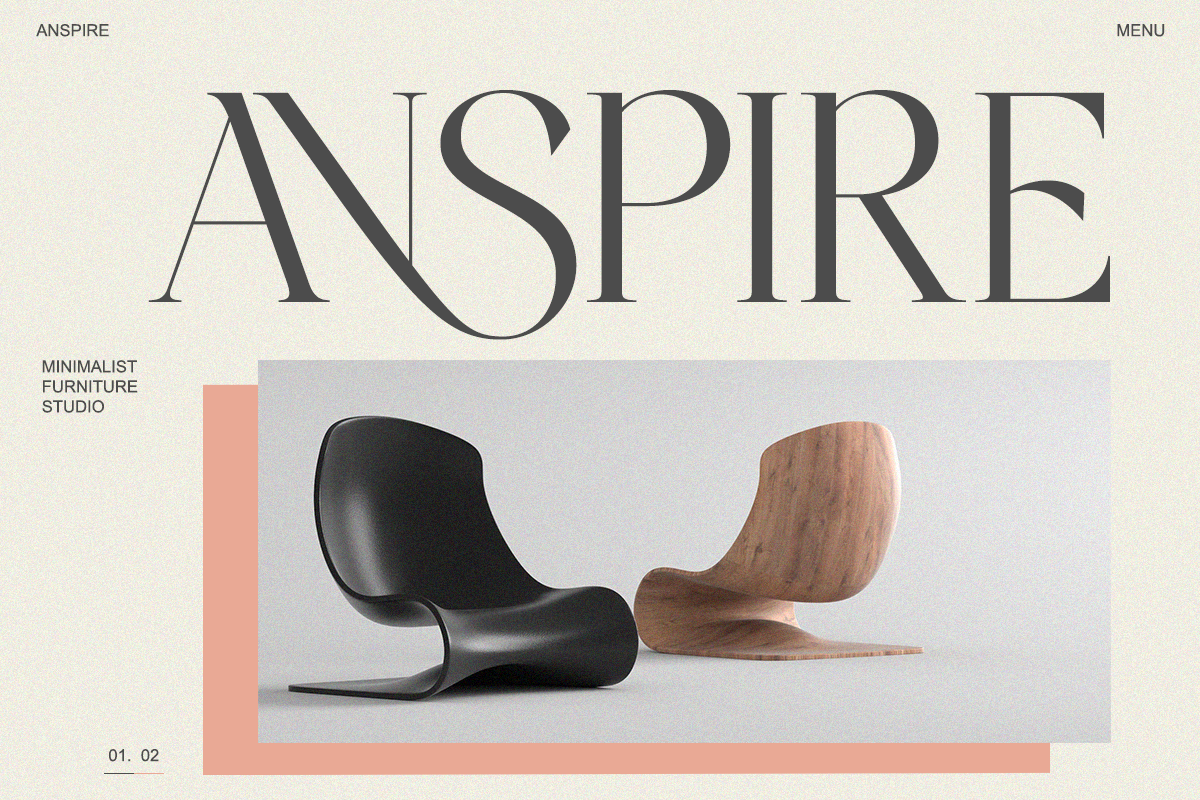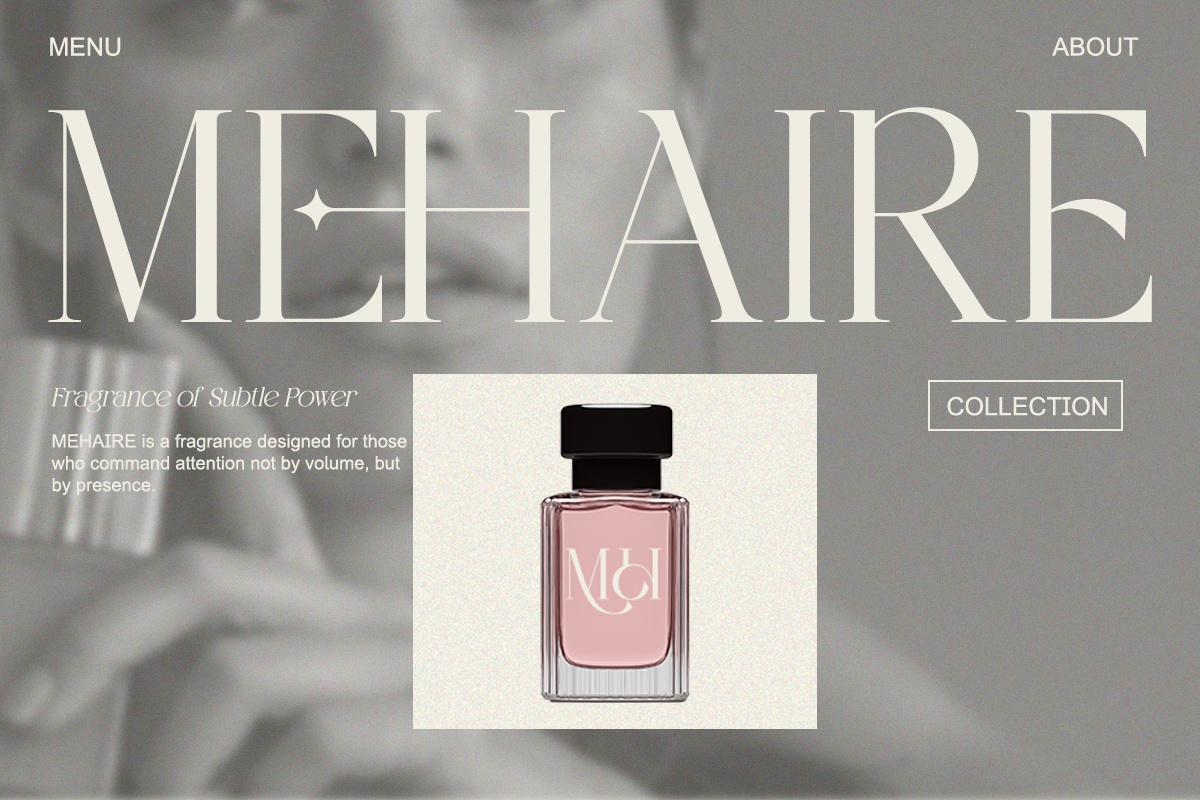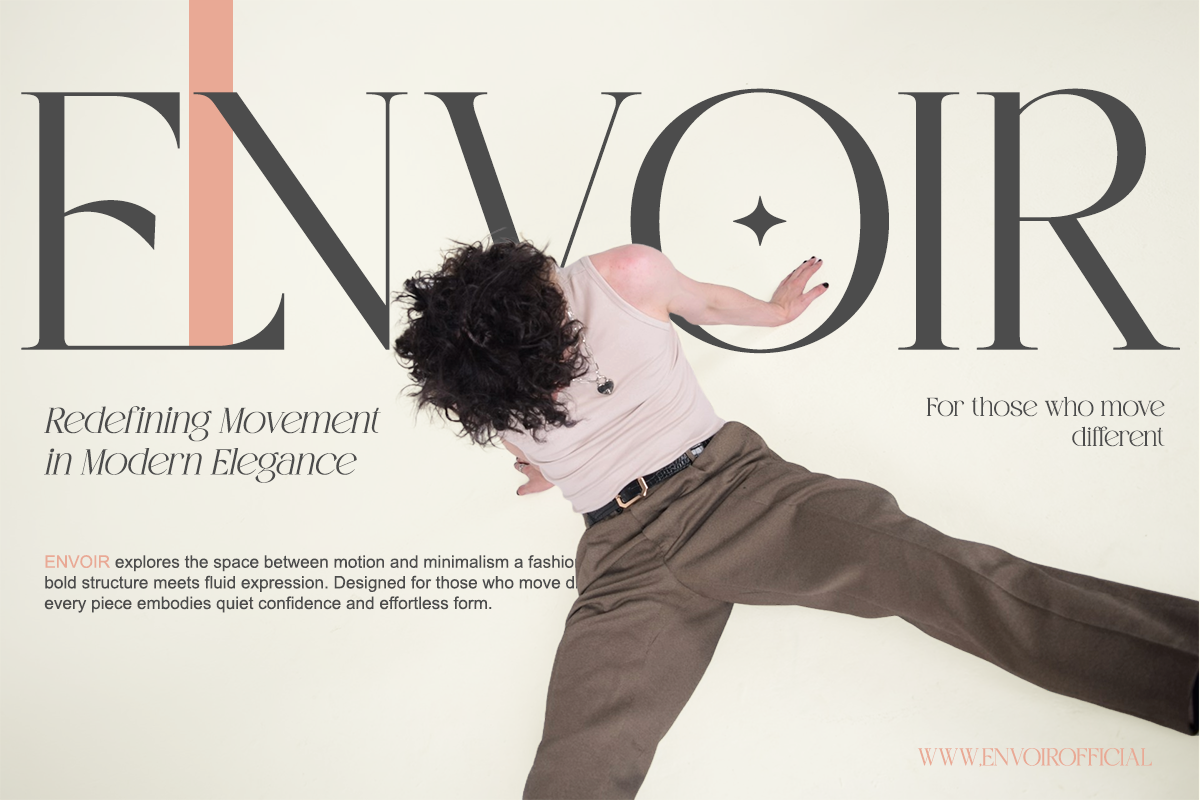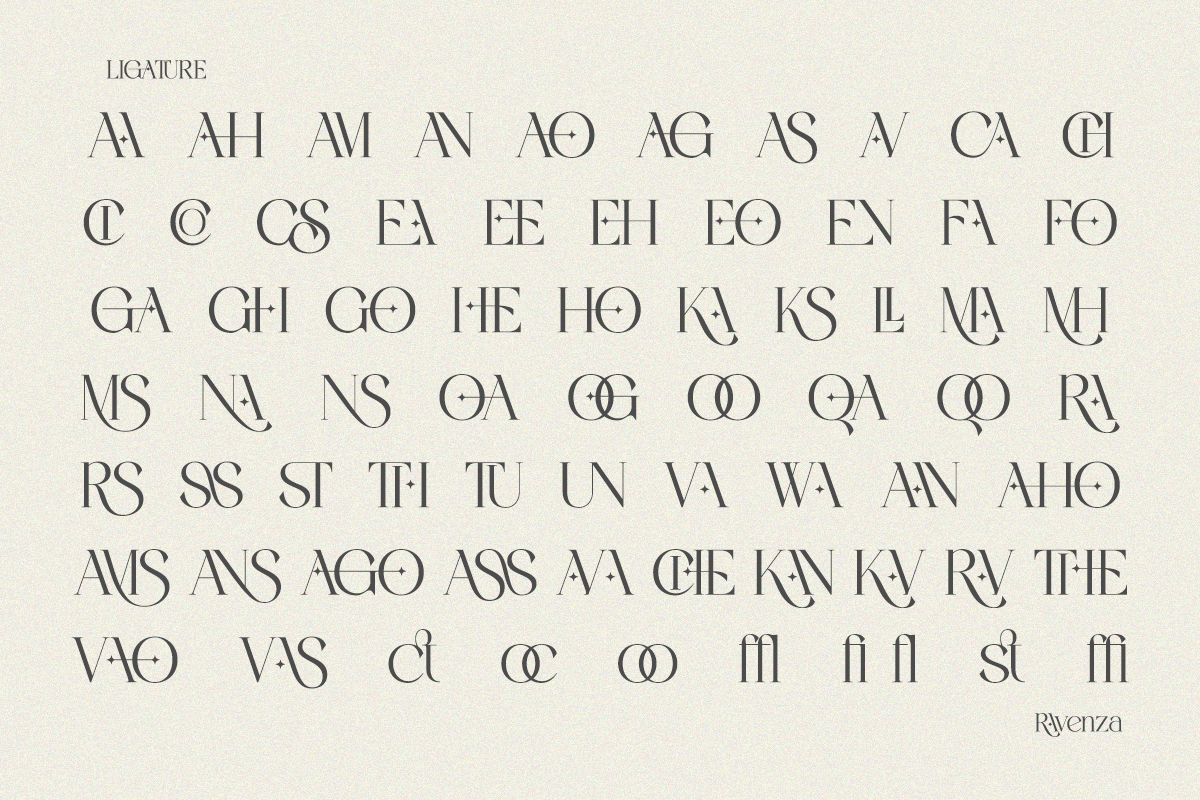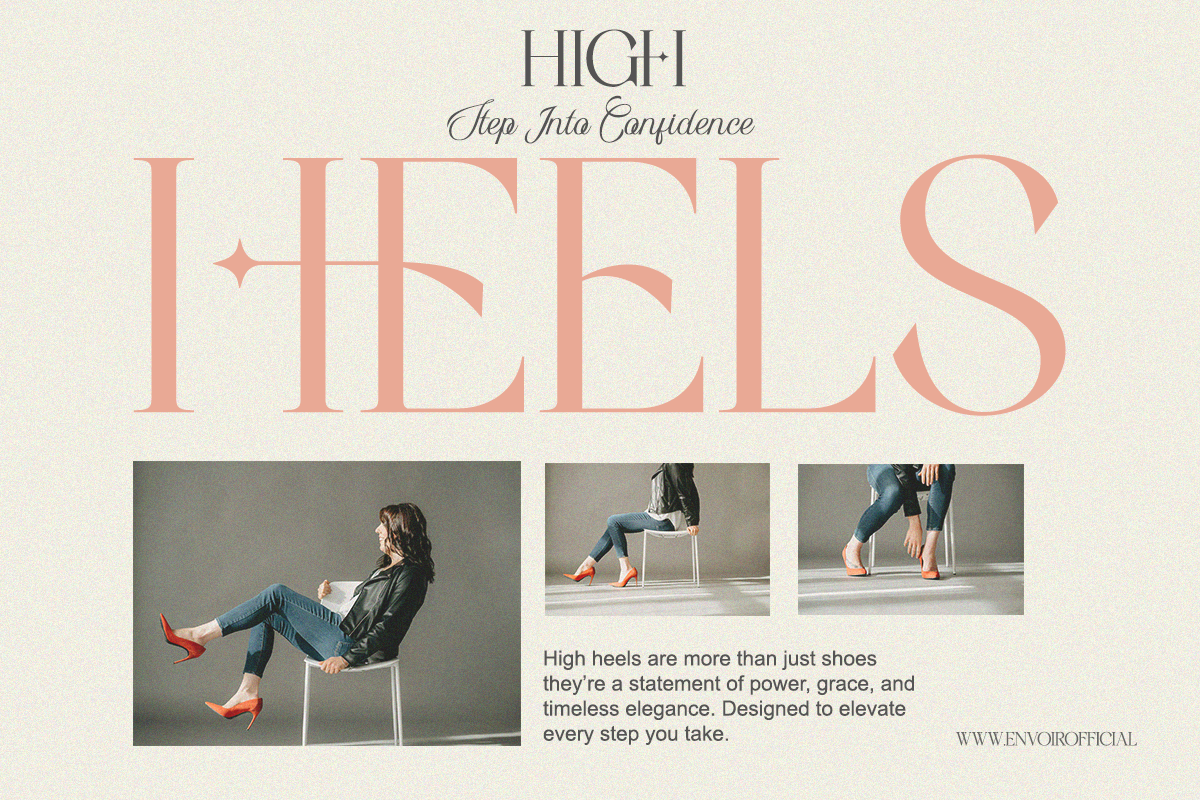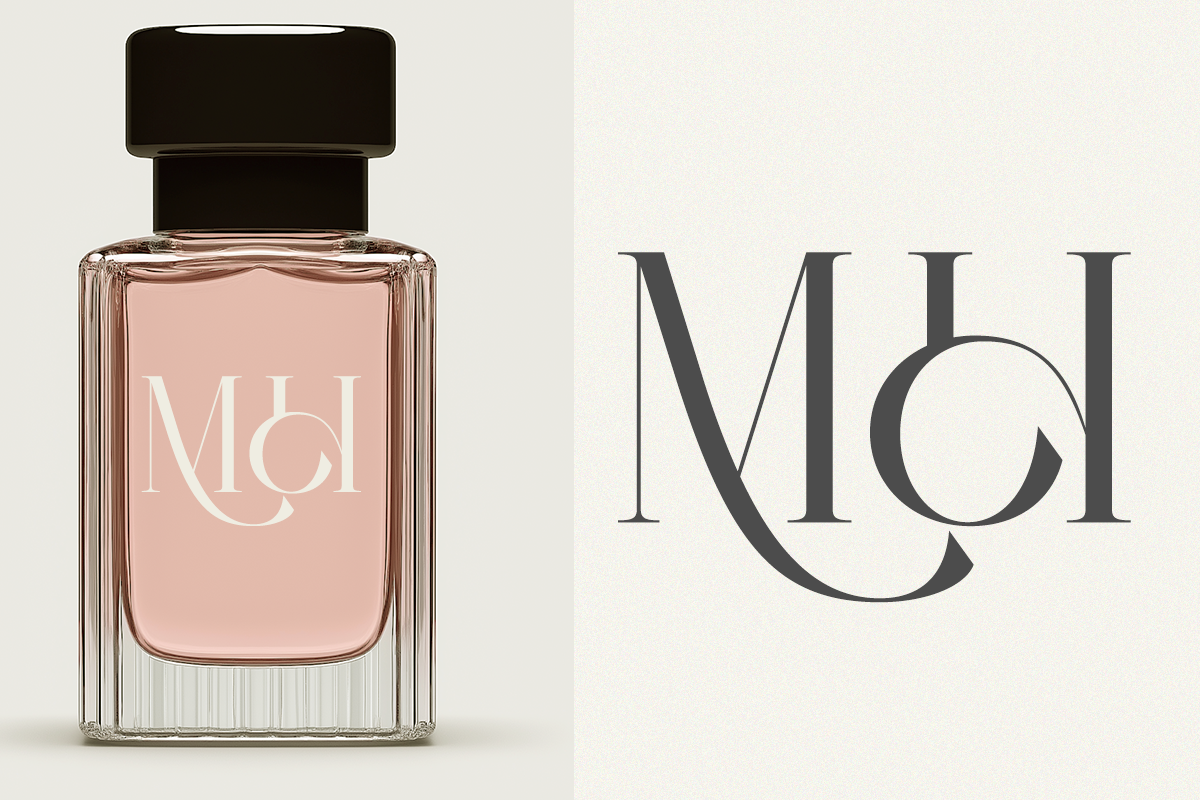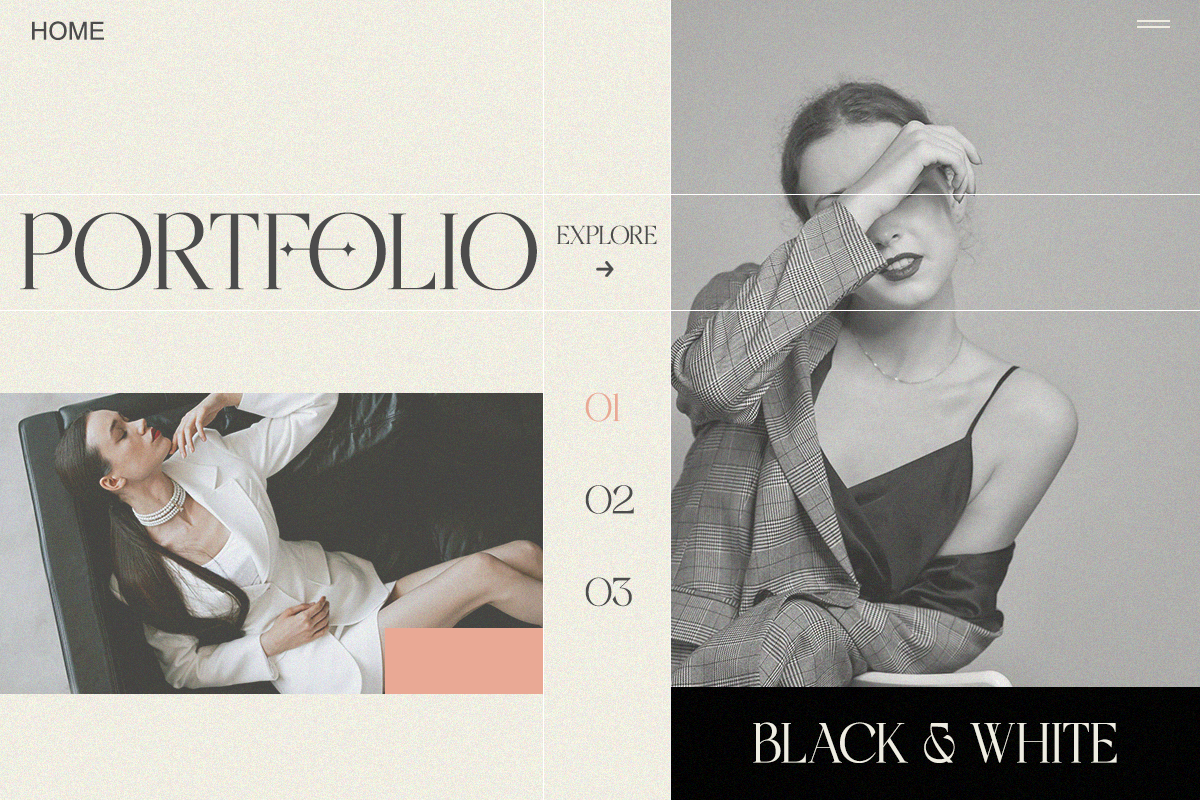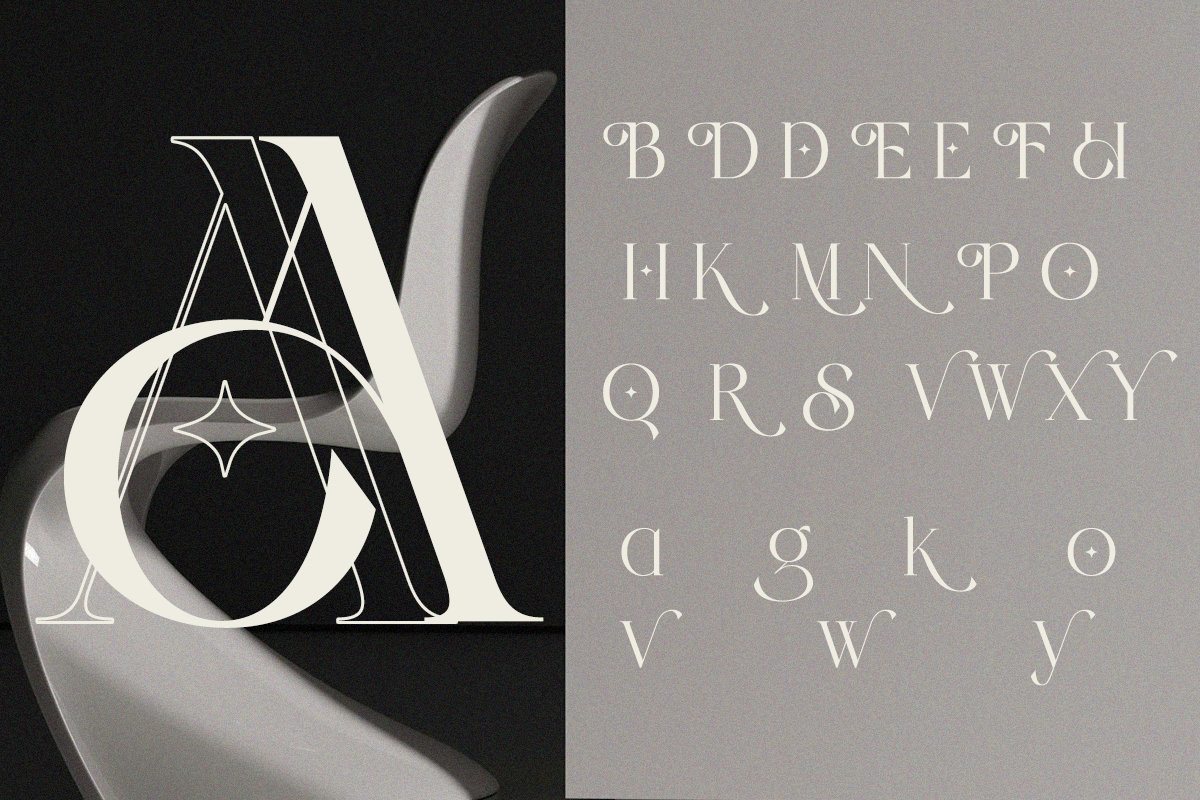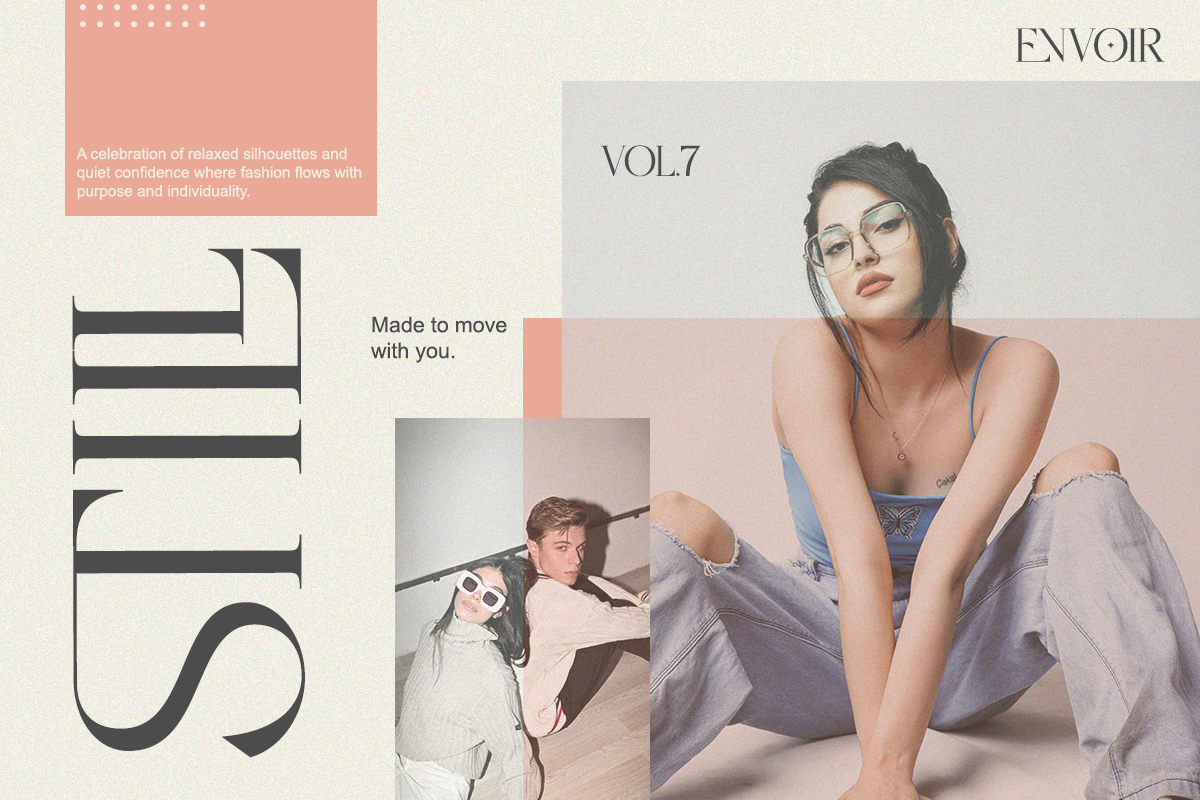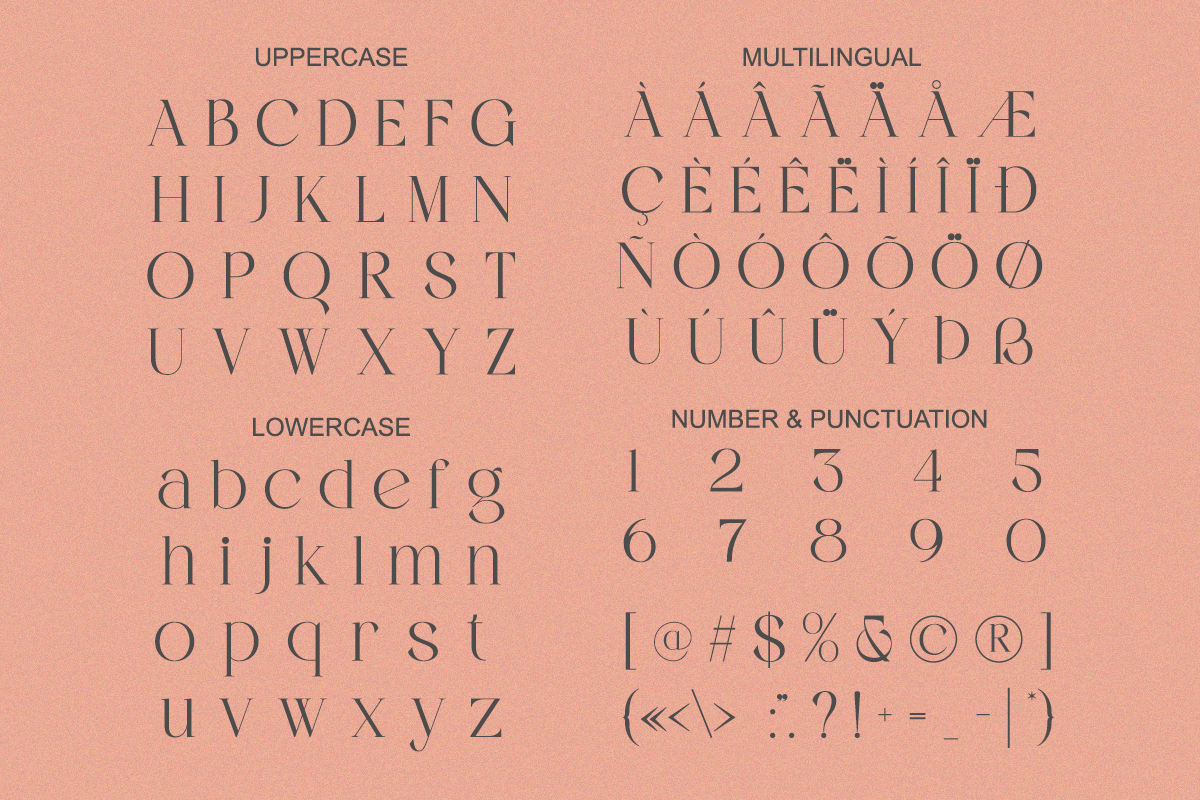
Ravenza - Modern Elegant Branding
Ravenza is a luxurious serif font that embodies timeless beauty and contemporary elegance. Its sharp curves, stylish ligatures, and balanced proportions make it perfect for branding, fashion editorials, logos, and product packaging. With a minimal yet confident tone, Ravenza delivers sophistication and creativity in every project.
- Regular & Italic
Perfect For: Fashion brands, magazine covers, editorial design, and elegant logos.